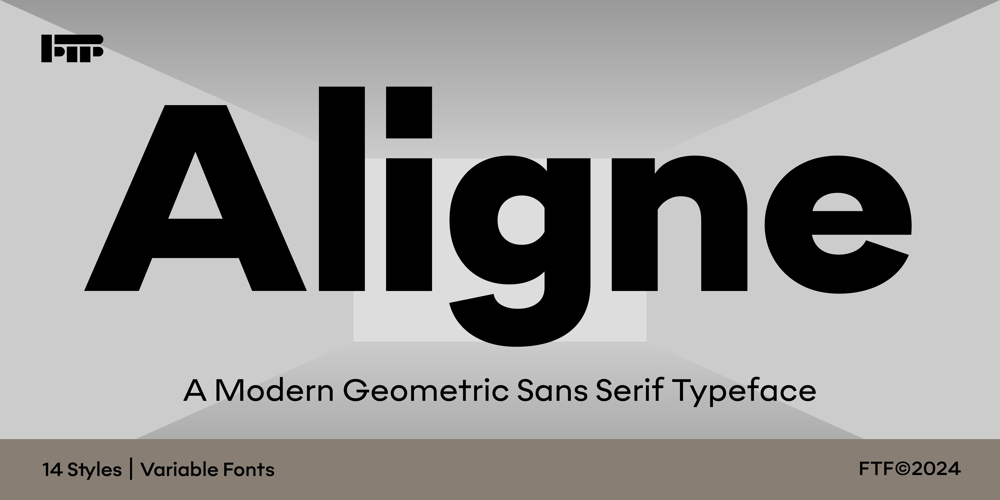
Aligne Font Family was designed by Deni Anggara and published by Formatype Foundry. Aligne contains 15 styles and family package options. Aligne® Typeface Family14 Fonts + 1 Variable FontExtended Latin SupportStylistic Alternates & LigaturesIntroducing Aligne®, a true geometric masterpiece! This typeface is meticulously crafted to embody the flawless essence of a perfected circle, seamlessly transformed into a cohesive font family.Why Choose Aligne?Aligne is designed to elevate your projects, drawing inspiration from many geometric fonts and evolving them into a unique and versatile typeface. Perfect for both screen and print, it shines even in small sizes.Features You’ll Love:Diverse OpenType Features: Enjoy character alternatives with both square and round dots, tailored for each available glyph.Extensive Styles: Aligne offers 7 styles plus 7 italics, in addition to a flexible Variable Font.Rich Opentype Functionality: Take advantage of features like Monospace Numbers, Old Style Numbers, Fractions, Case Artistic, and more.With Aligne, your design possibilities are endless. Embrace the geometric perfection and versatility it brings to your creative projects!